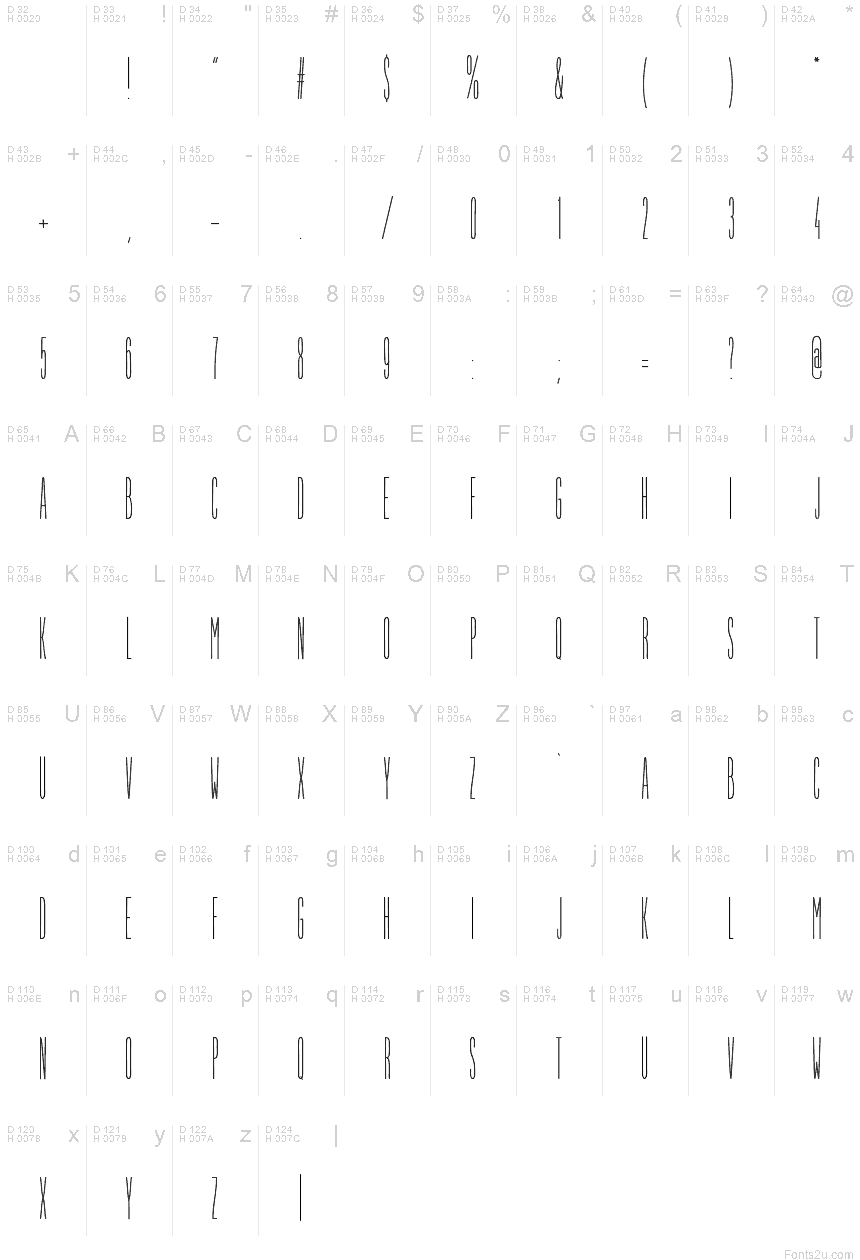
Jumping the Couch
A narrow organic font that suits alternative movie poster credits, friendly restaurants menus or anything that needs a personal touch in an easy narrow way.
Jumping the Couch is a font designed by HENRIavecunK in 2016